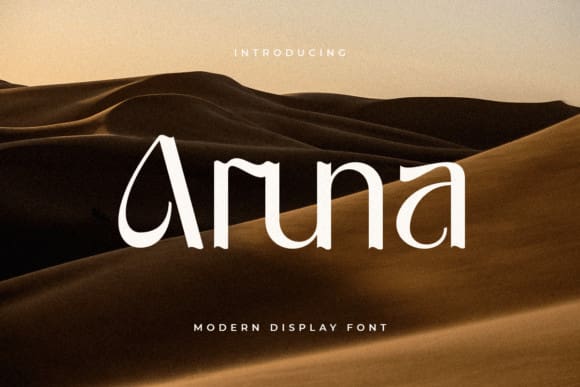
Aruna Font
Aruna Font is a balanced and stylish sans-serif font that exudes contemporary sophistication. With clean lines and subtle curves, it offers clarity and elegance to any design project. Perfect for branding, editorial content, and modern layouts, Aruna strikes a harmonious balance between professionalism and creativity, ensuring visual appeal and readability.